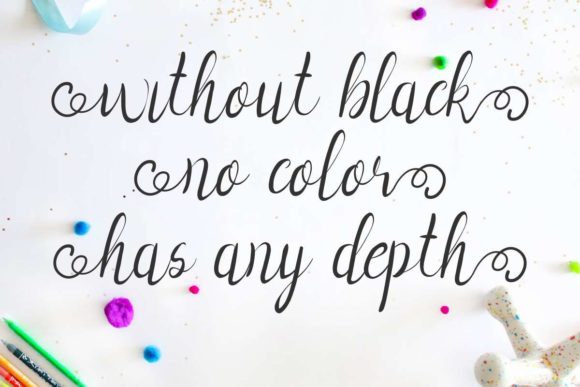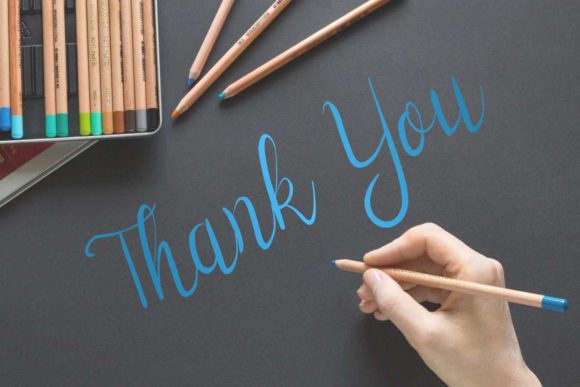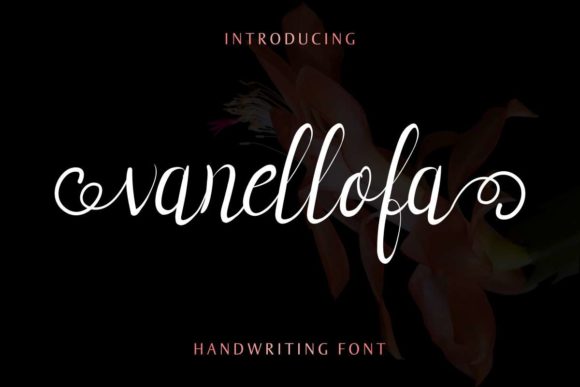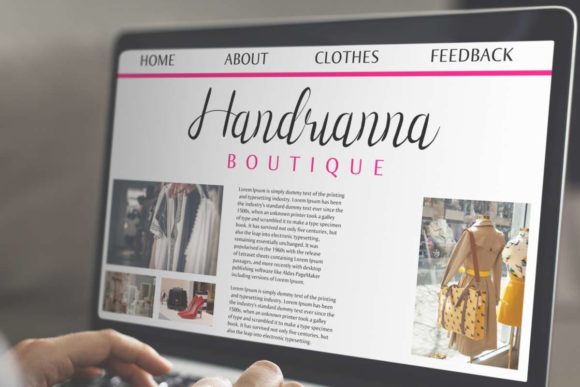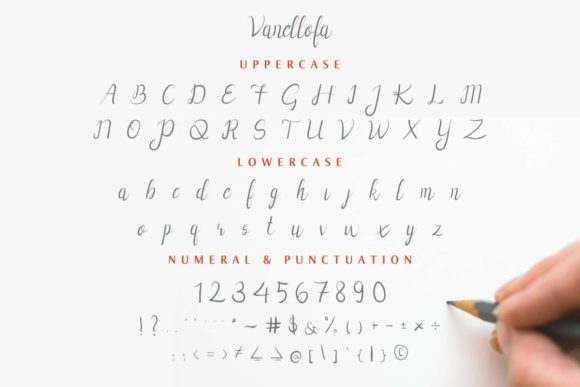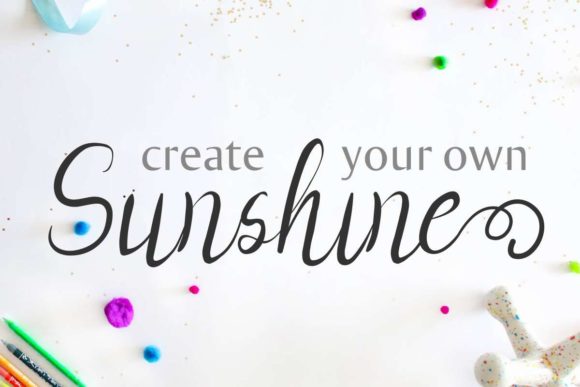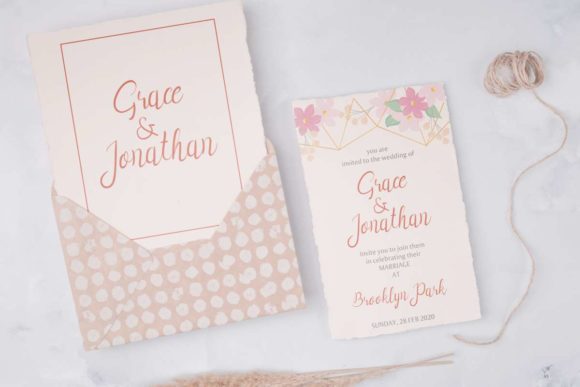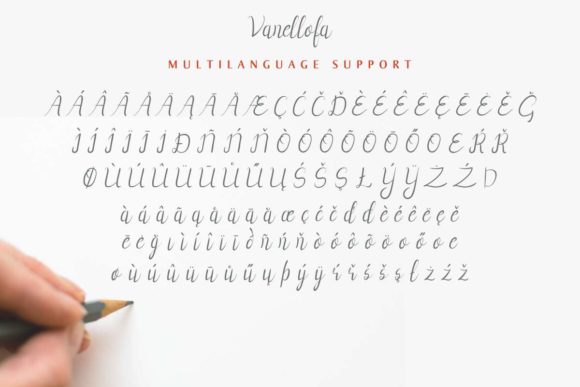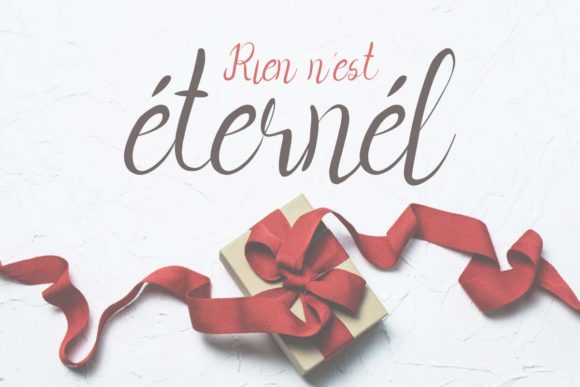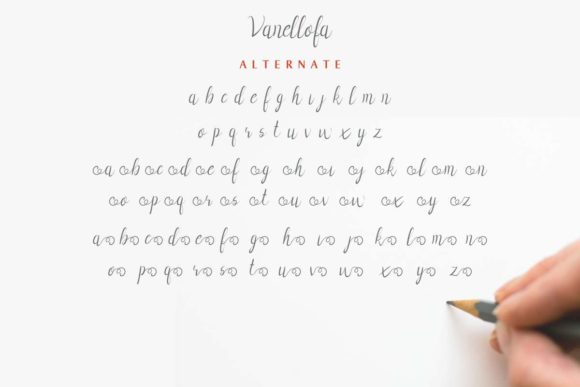
Vanellofa Font
About Vanellofa Font
Vanellofa celebrates all things spring and delivers an outstanding font experience. This script will elevate any DIY project!